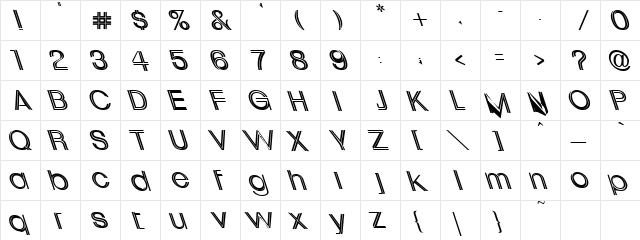
Core 6 Regular
Design Context for Core 6 Typeface
Core 6 is a composed and adaptable typeface that performs quietly and consistently across a wide range of design contexts.